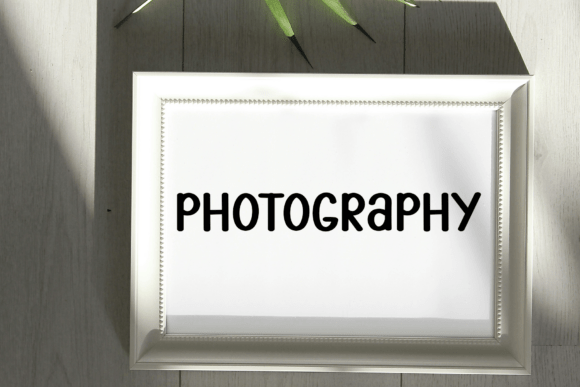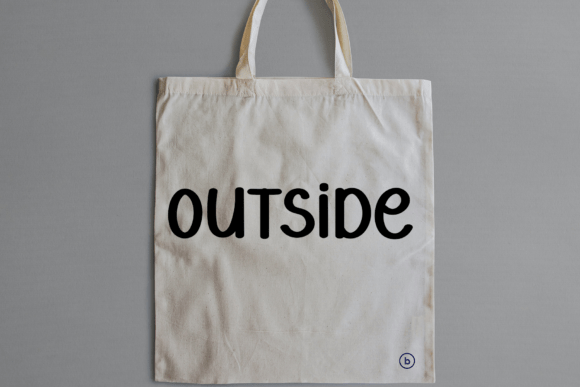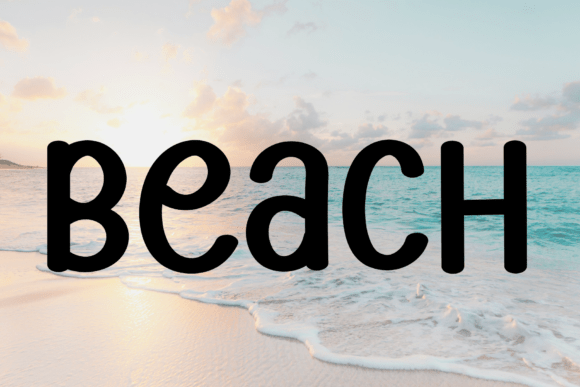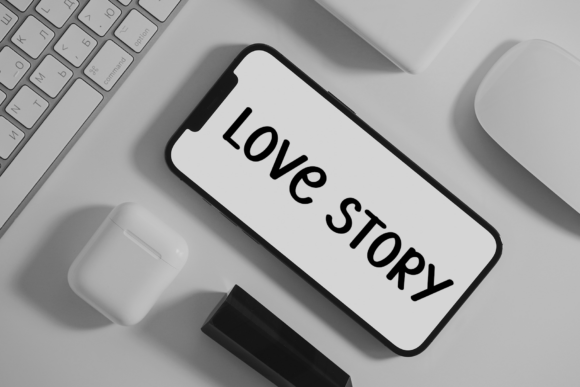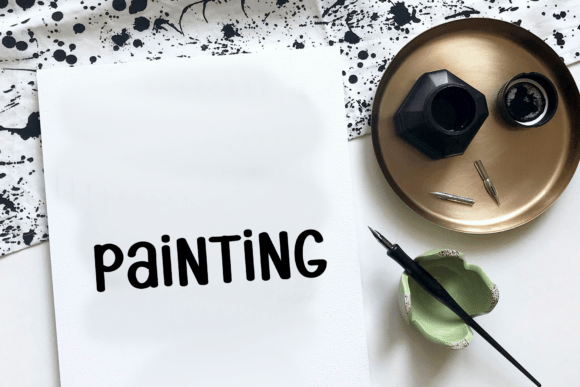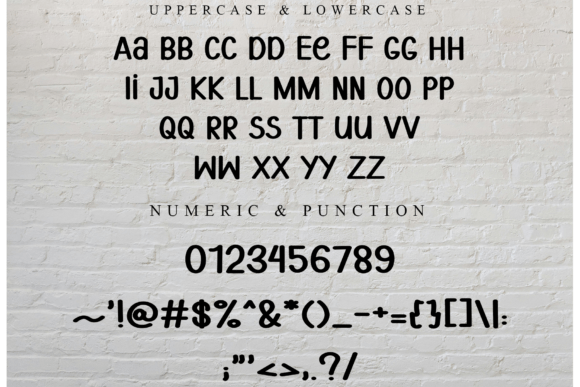
Bring a Touch of Whimsy to Your Designs with Easter Font
As you sit at your desk, staring at a blank page, trying to come up with the perfect logo or branding idea, the creative wheels start turning. You envision something elegant, yet playful – a design that captures the essence of springtime and new beginnings. And that’s exactly where the Easter Font comes in – a beautifully crafted handwritten font that’s sure to add a touch of whimsy to your designs.
This lovely font is perfect for creating eye-catching logos, branding, and quotes that are sure to leave a lasting impression. Every letter has a unique and beautiful touch, making your design come alive in a way that’s both timeless and modern. Whether you’re a seasoned designer or just starting out, the Easter Font is a valuable addition to your toolkit, offering endless possibilities for creative expression.
Easter Font Key Features
- Character Set: This font includes a unique set of Easter-themed characters, including eggs, bunnies, and other spring-inspired designs, adding a fun and creative touch to any text.
- Color Variations: The font includes a range of color options, allowing users to customize the appearance of the text to suit their design needs.
- Font Style: Easter Font is a sans-serif font with a playful and whimsical feel, making it perfect for use in designs related to Easter, spring, and other festive occasions.
Easter Font Review
First impressions of the Easter Font are quite playful and fun. The ✨ bold and colorful design elements immediately grab your attention and evoke the spirit of Easter. I particularly appreciate the creative use of Easter-themed icons and typography, which adds a touch of whimsy to any design project.
The font is well-suited for creating festive and eye-catching graphics, such as Easter invitations, greeting cards, and social media posts. It’s perfect for designers looking to add a pop of color and fun to their designs.
- Playful and colorful design elements
- Unique Easter-themed icons and typography
- Perfect for creating festive and eye-catching graphics
- May not be suitable for formal or professional designs
- Could be overwhelming if used excessively
- Limited versatility outside of Easter-themed projects
Overall, I think the Easter Font is a great addition to any designer’s toolkit, especially for those looking to create fun and festive designs. However, it’s essential to use it judiciously to avoid overwhelming the design.
Easter Font: A Practical Application Guide
Some popular use cases for Easter Font include:
- Spring-themed invitations and greeting cards.
- Decorative text for Easter-themed social media posts.
- Headings and titles for spring-themed blog posts and articles.
When using Easter Font, remember to balance it with other design elements to avoid overwhelming the design.
Alternatives to Easter Font for Designers
Cream Soda
Cream Soda is a script font that features a vintage, handwritten feel. It is ideal for use in designs that require a soft, elegant touch, such as wedding invitations or baby shower decorations. Compared to Easter Font, Cream Soda has a more refined and sophisticated look, making it suitable for a wider range of design applications.
Luckiest Charm
Luckiest Charm is a whimsical script font that is perfect for designs that require a playful, magical touch. It is ideal for use in designs such as party invitations, greeting cards, or promotional materials for events. Compared to Easter Font, Luckiest Charm has a more dynamic and unpredictable feel, making it suitable for designs that require a sense of excitement and energy.